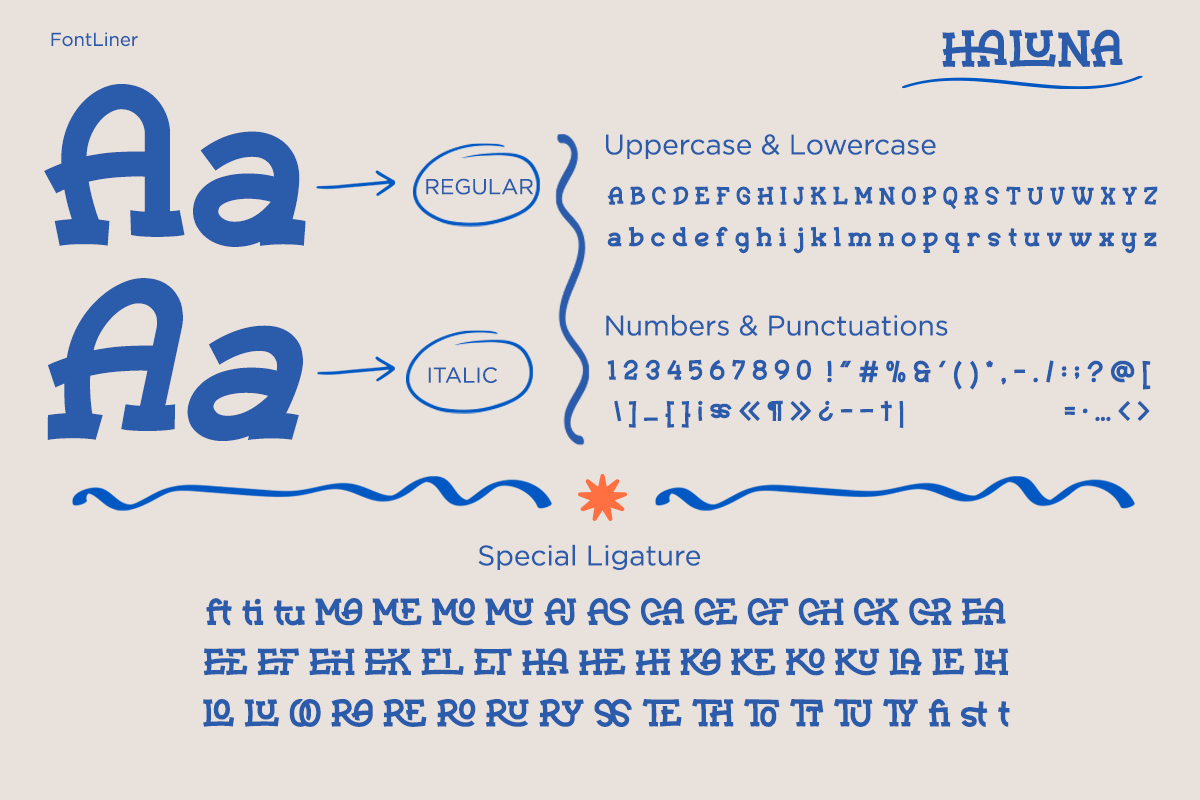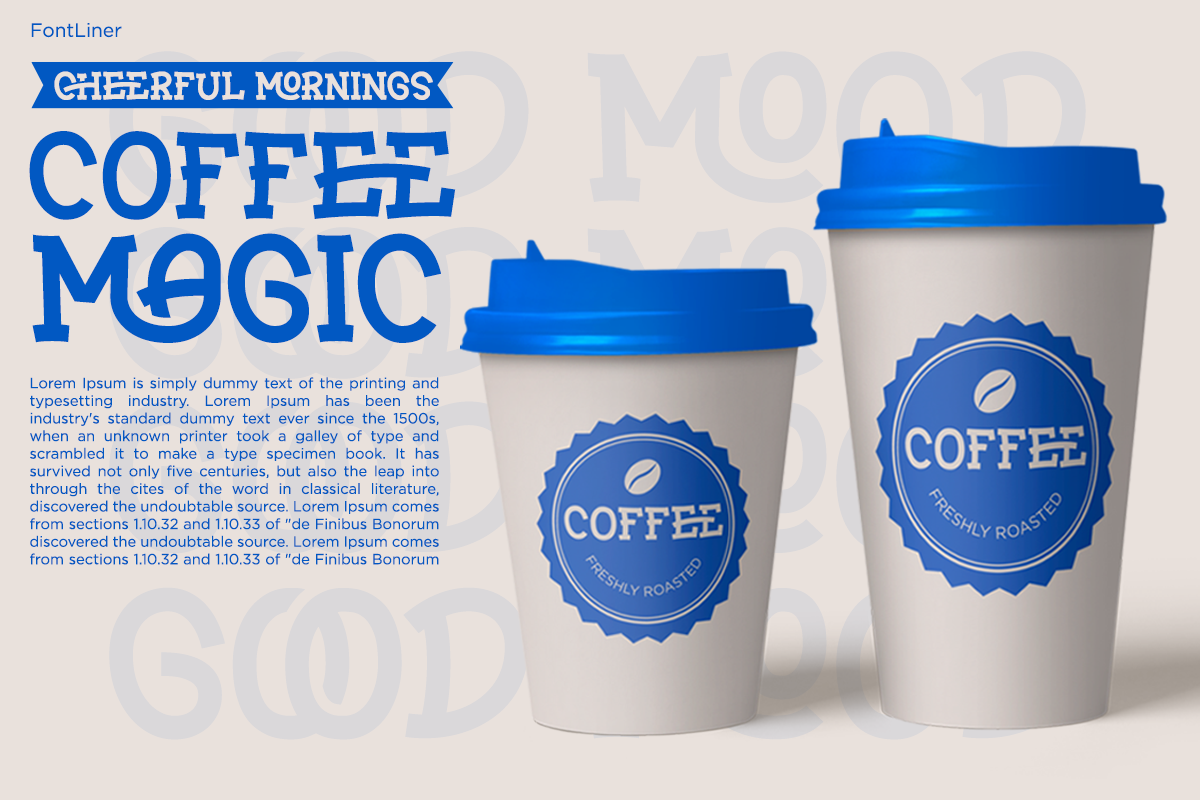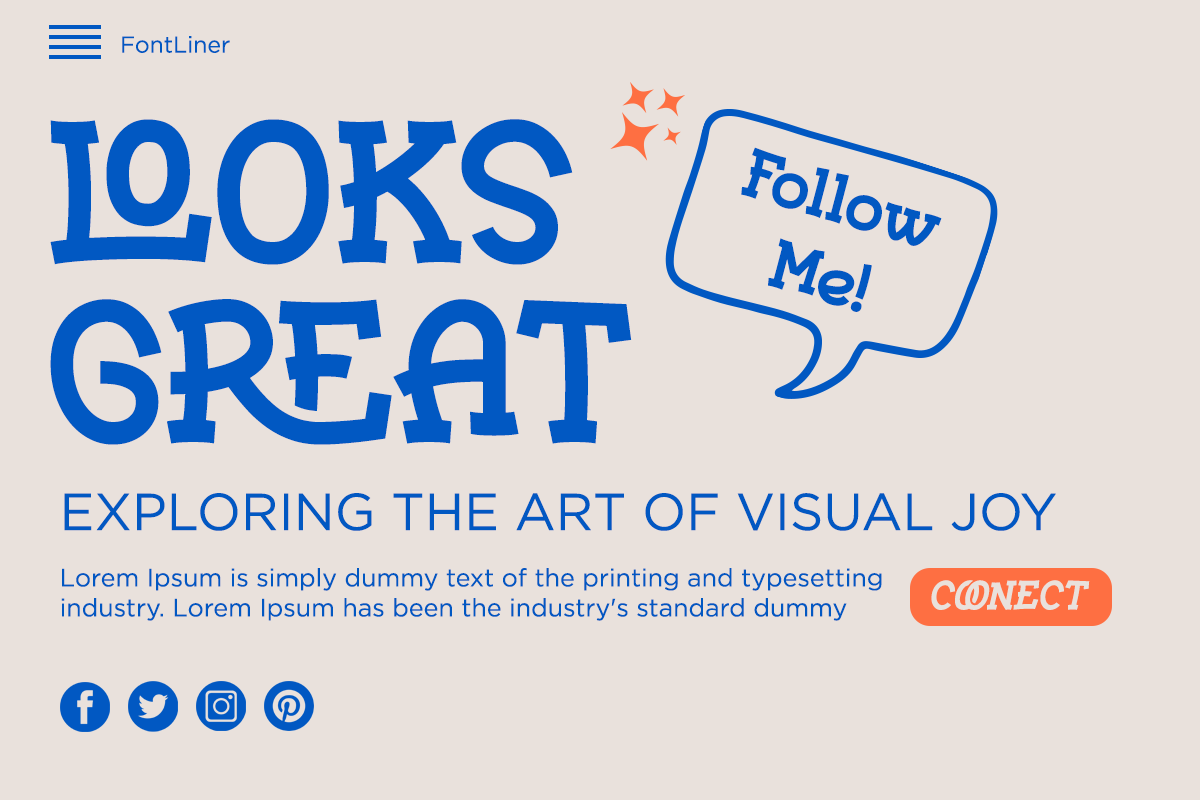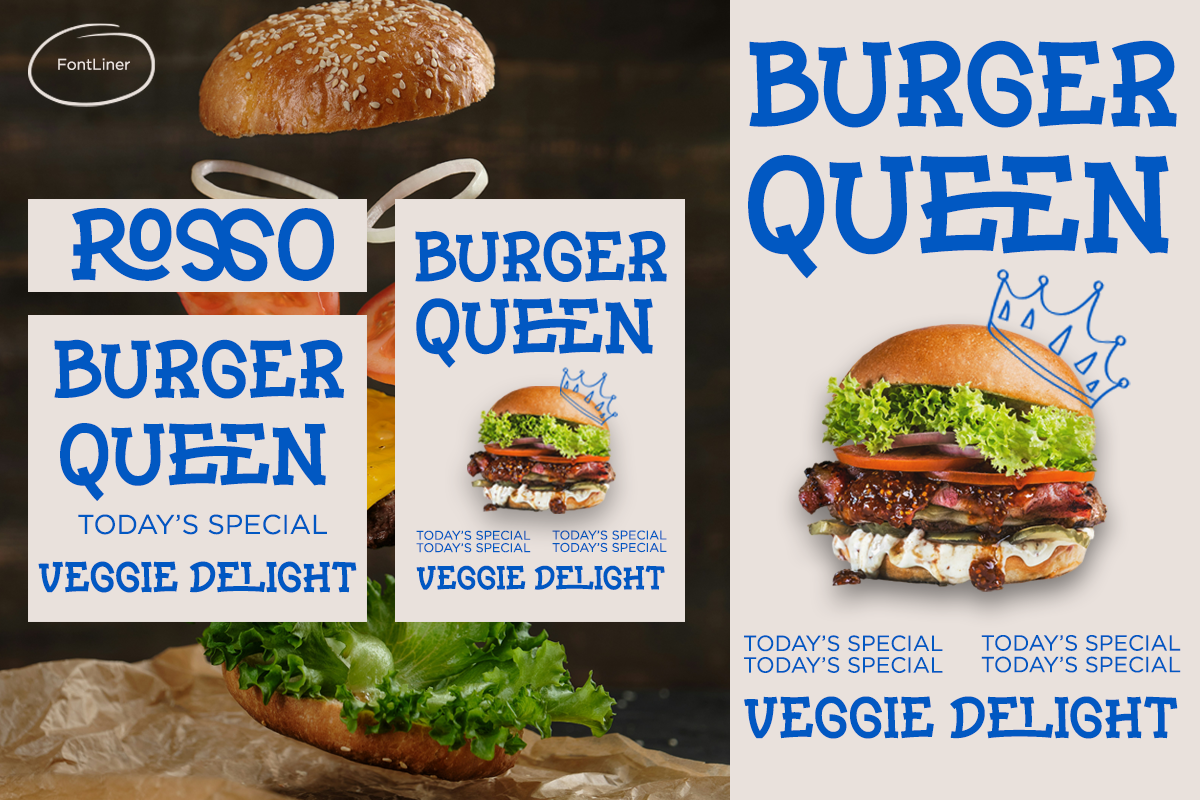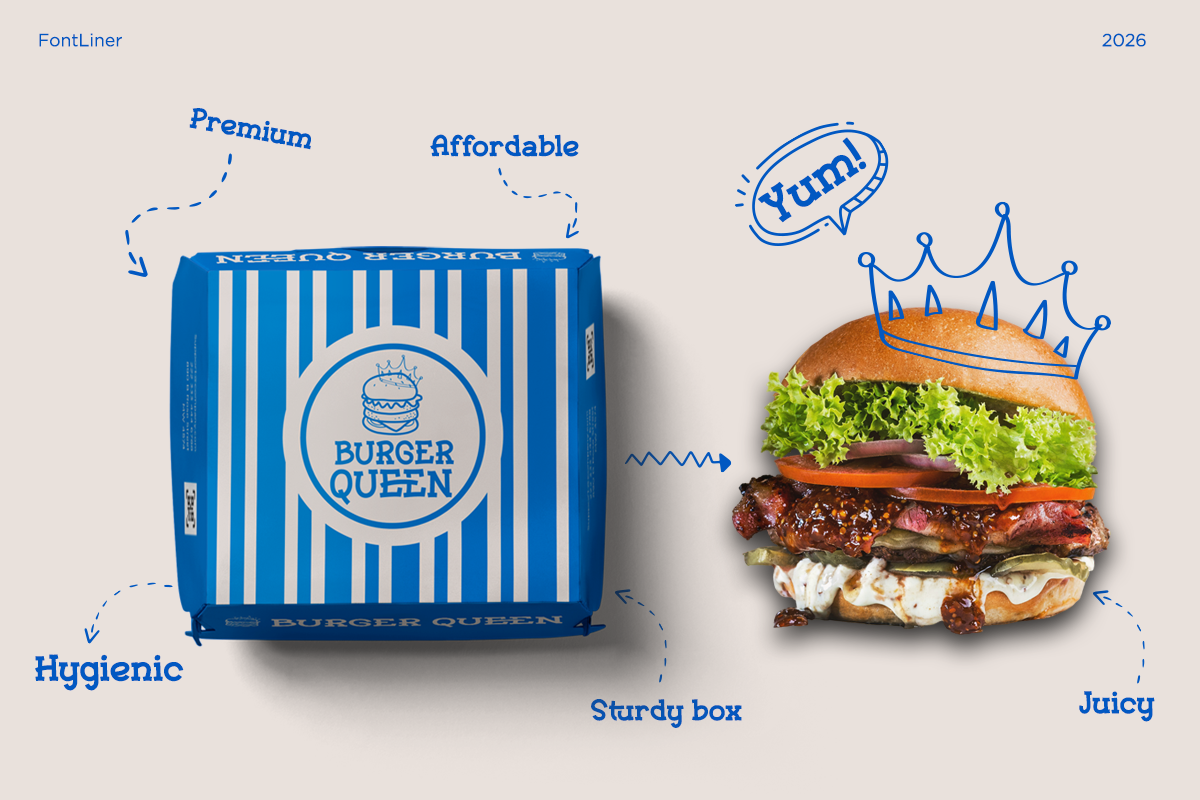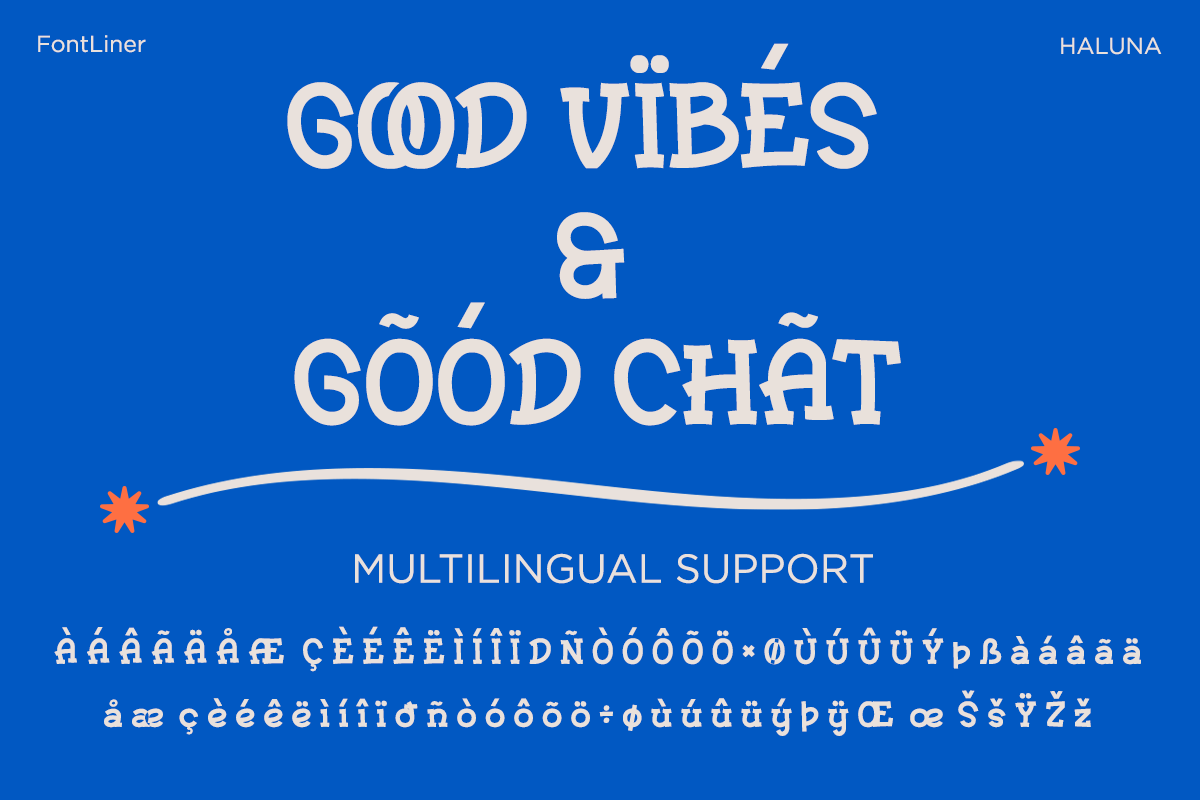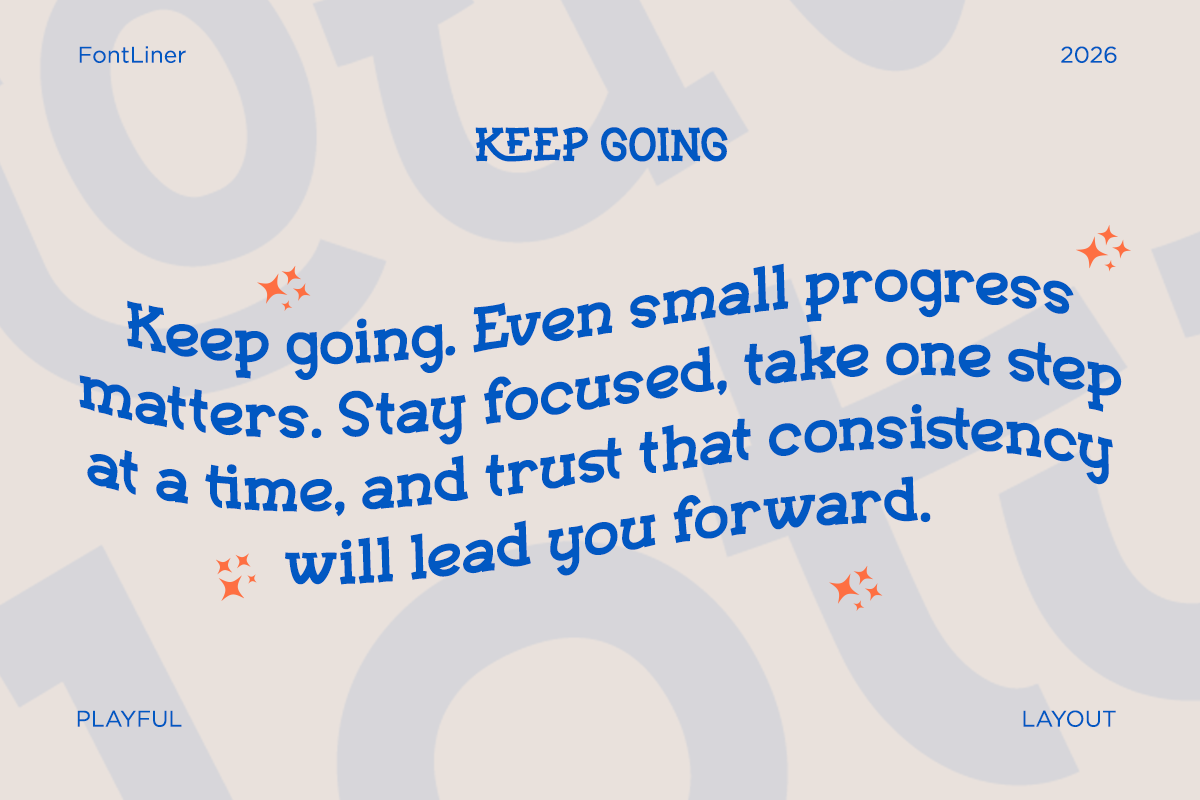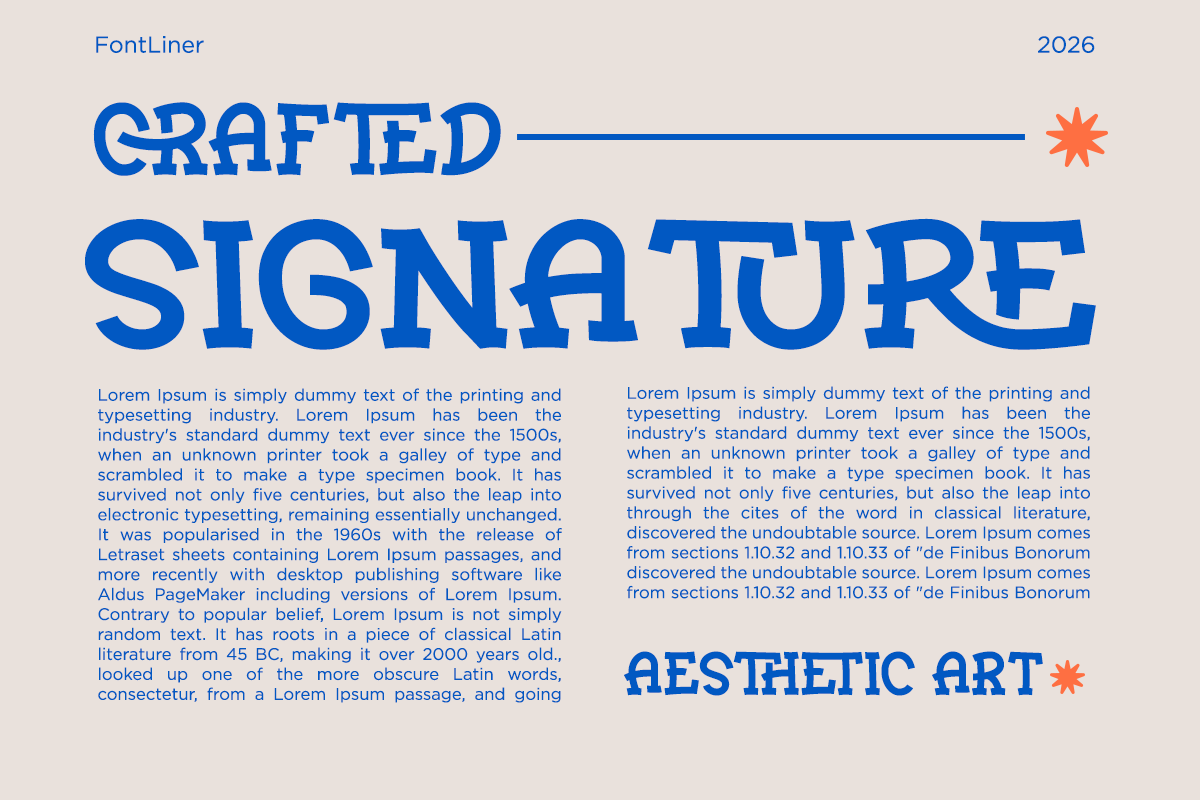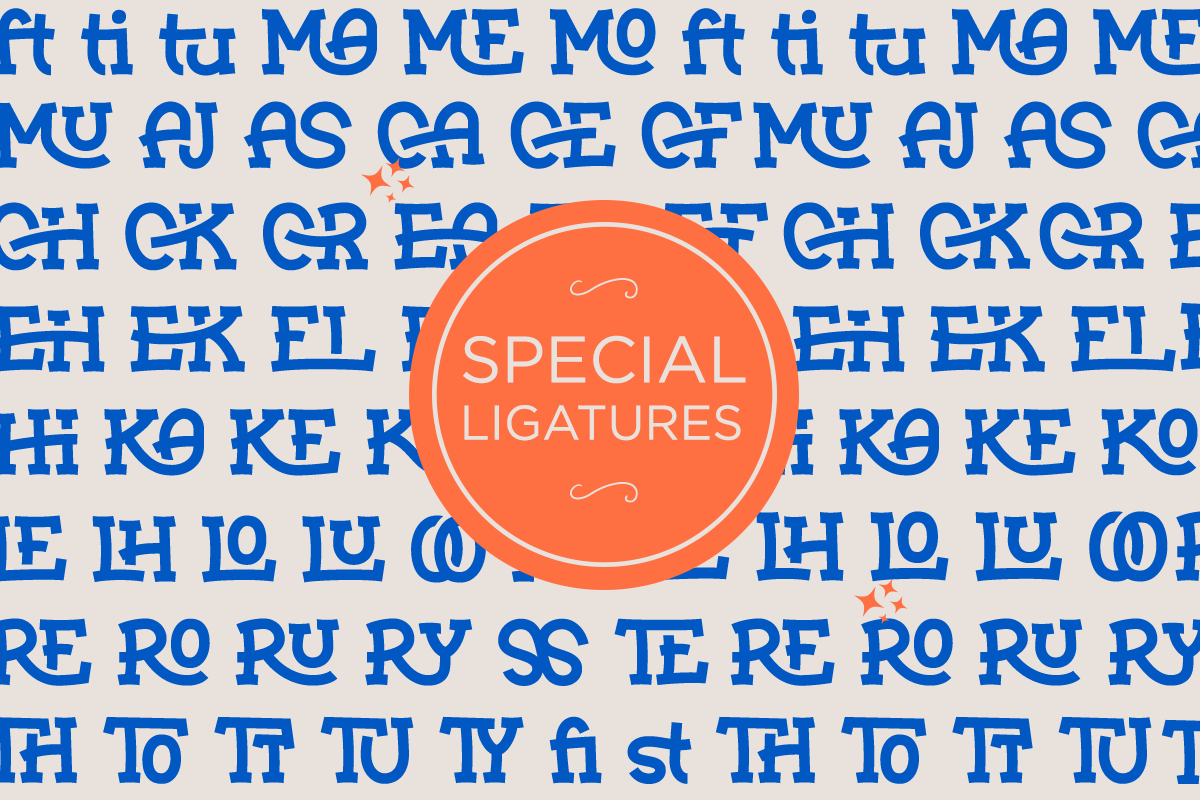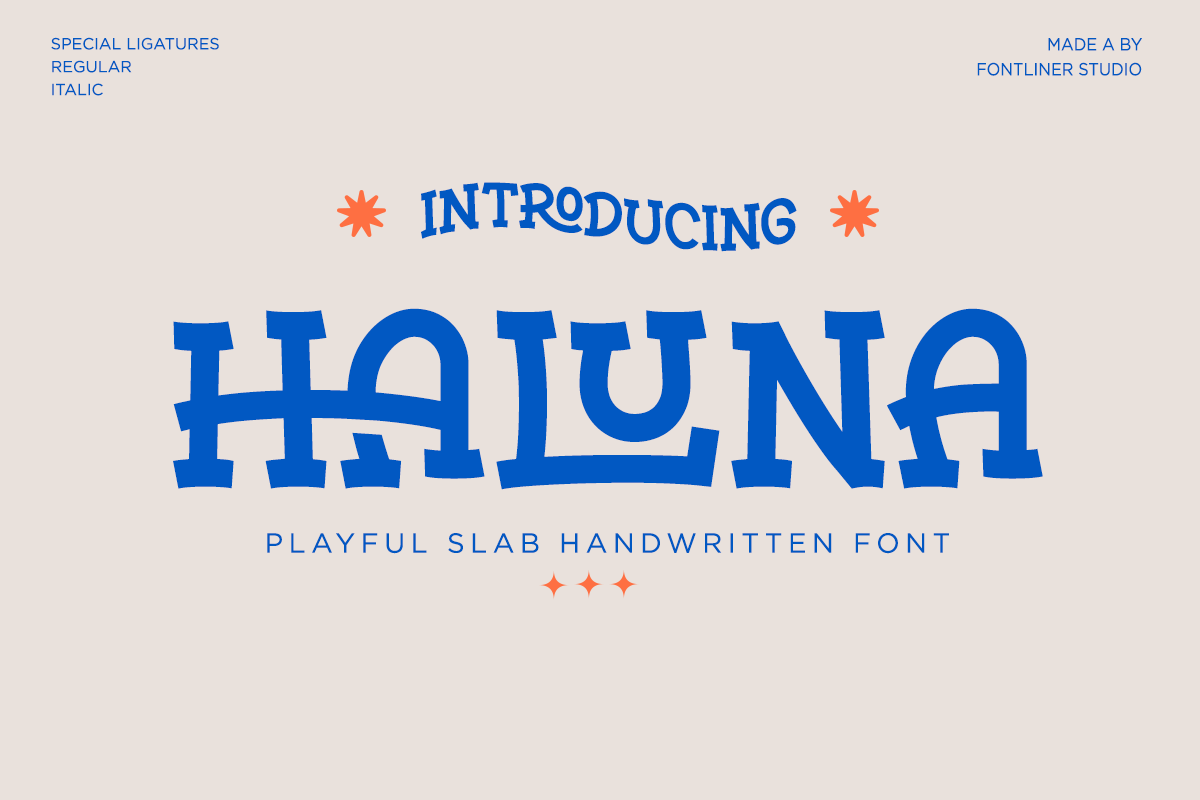
Haluna - Playful Slab Serif
Haluna is a playful slab handwritten font designed to bring warmth, personality, and joyful expression into your designs. Inspired by hand-drawn lettering and friendly visual storytelling, Haluna blends bold slab shapes with a natural handwritten flow, creating a typeface that feels fun, approachable, and full of character.
Its chunky forms and soft curves give Haluna a strong presence while keeping a casual and cheerful tone. This balance makes it perfect for creative projects that need to feel human and engaging, from branding and packaging to posters, children’s content, social media graphics, and lifestyle designs. Haluna instantly adds charm without sacrificing readability.
Equipped with uppercase and lowercase characters, regular and italic styles, and special ligatures, Haluna offers flexibility for expressive typography. Each detail is crafted to feel organic and lively, helping designers create dynamic layouts that feel personal and memorable across both print and digital media.
Whether you’re working on a playful brand identity, a fun product label, or a creative campaign that needs a friendly voice, Haluna is designed to turn words into smiles. It’s a font that celebrates creativity, imagination, and the beauty of handcrafted design.